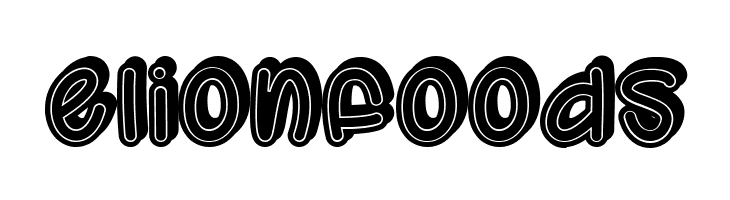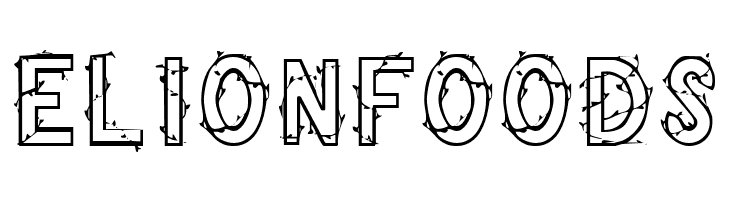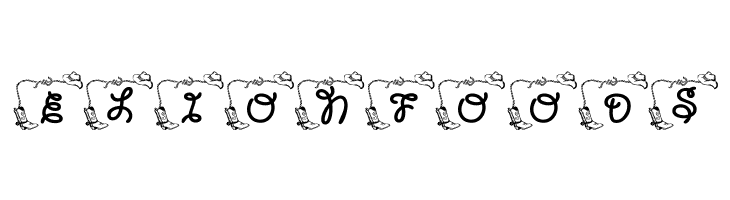
• IronGlass DropCaps
( Jeni Pleskow - rois.org/ )
An ornate, decorative font with intricate, stained glass-like designs.
• Lil Mices _KG
( Katz Fontz - katzfonts.50megs.com/kg.html )
A whimsical font with mouse-themed uppercase and cheese-themed lowercase letters.
• LCR Cowboy's Rest
( LeChefRene - members.aol.com/lcrfonts/ )
A decorative Western-themed font with cowboy motifs and rope details.
• Supermassive Black Hole
( Misti's Fonts - mistifonts.com/ )
A bold, playful font with thick outlines and a cartoonish style.
• 101! Ballet BorderZ
( Nght's Place - www.crosswinds.net/~nghtmvs/font/fonts1.html )
An elegant, decorative font with intricate vine-like borders around each character.
• Water Rocket PG
( Paul Grosse - grosse.is-a-geek.com/paul/ttf01.htm )
Icon-based decorative font themed around water rockets and related objects.
• Pete Boys Climbing Plant
( Pete-Boy )
A decorative font with plant-like embellishments entwining each character.
• RMCalli1
( Renny Murray - www.rennysniche.com )
An ornate, decorative font with vintage-style framed characters.
• RMCalli2
( Renny Murray - www.rennysniche.com )
A decorative font with letters encased in floral-like circular designs.
• Initial Caps
( SnapeFonts - www.johnsnape.com/ )
An ornate, decorative font with intricate, artistic frames around each letter.